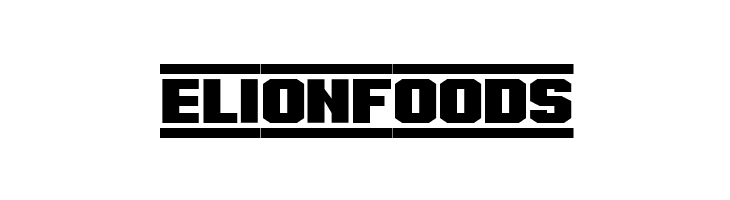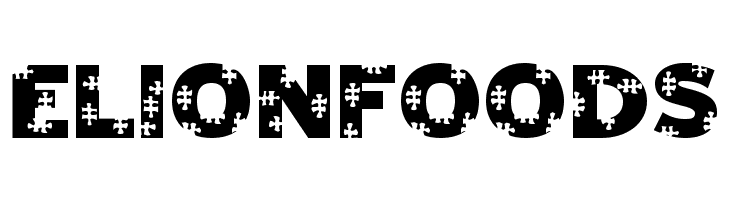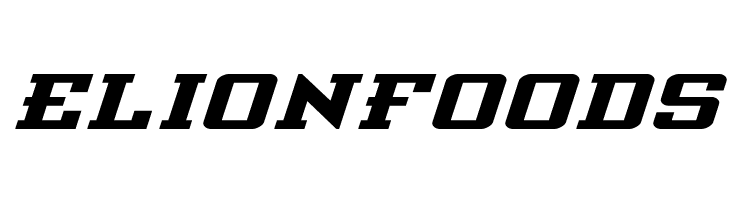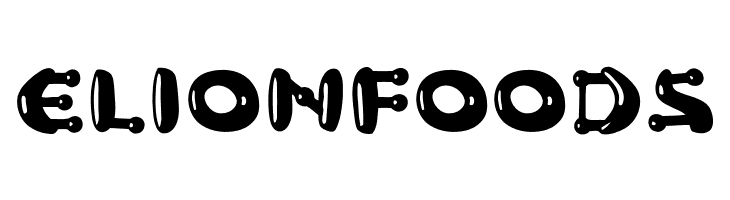
A playful, decorative font with drip-like extensions and circular cutouts.
A bold, industrial font with circular cutouts for a mechanical look.
A bold, geometric font with a modern, industrial feel, ideal for dynamic and powerful designs.
A bold, playful font with rounded characters and circular cutouts, perfect for decorative use.
A bold, italicized font with a dynamic and modern style.
A bold, geometric font with a modern, decorative style and unique cutouts.